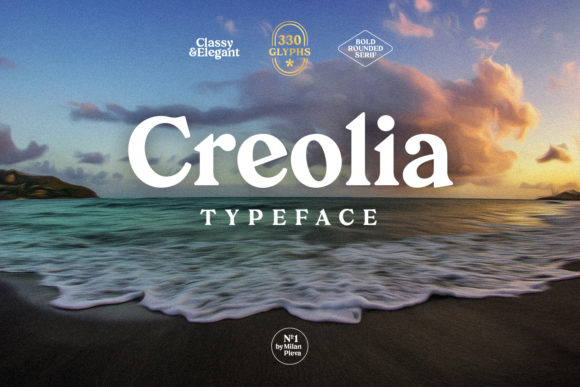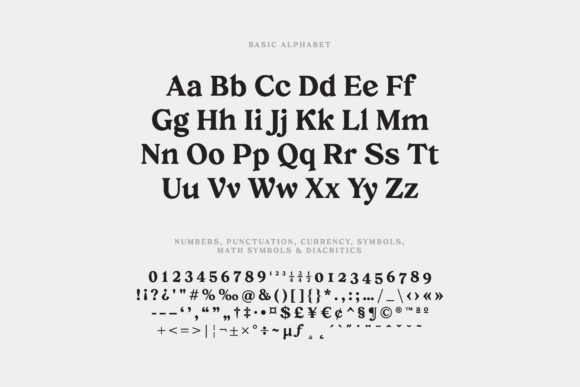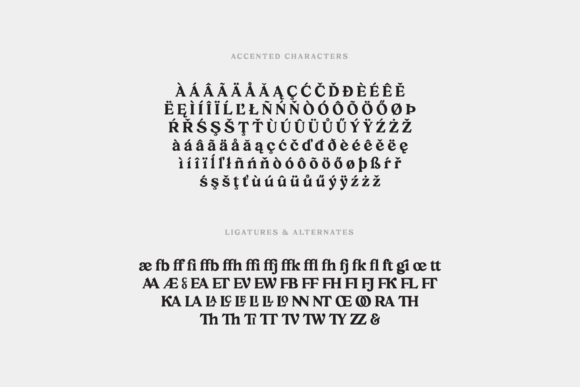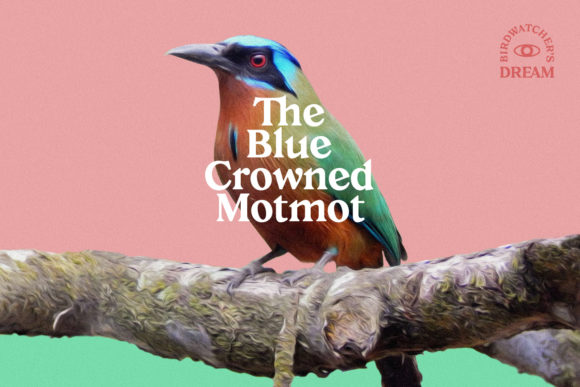
Creolia Font: Modern Serif Typography for Elegant Logo Design
About the Creolia Font
Make a bold statement with Creolia Font, a powerful and memorable font. Creolia is a bold rounded serif typeface in a modern and classy style. OpenType features include old-style figures and ligatures. Creolia is ideal for headlines, headers, logos, labels, packaging, postcards, presentations, magazines, invitations, etc.
Its bold, rounded serifs lend a modern yet sophisticated feel, making it particularly well-suited for branding projects requiring a touch of elegance, high-end packaging, and impactful headlines. Creolia’s strength lies in its ability to command attention; it is less effective for extended body text or UI elements where readability over long passages is paramount.
For optimal pairings, consider a clean sans-serif like Lato or Open Sans for body copy, balancing Creolia’s boldness with a legible counterpart. Alternatively, a delicate script font such as Great Vibes can add a touch of whimsy to invitations or packaging designs where Creolia forms the primary headline.
Creolia’s overall personality is confident and refined, suitable for brands projecting authority and sophistication, yet with a contemporary edge. Avoid pairing it with overly decorative or playful fonts that might clash with its inherent classicism.
Creolia Font Usage Examples
Creolia Font Example